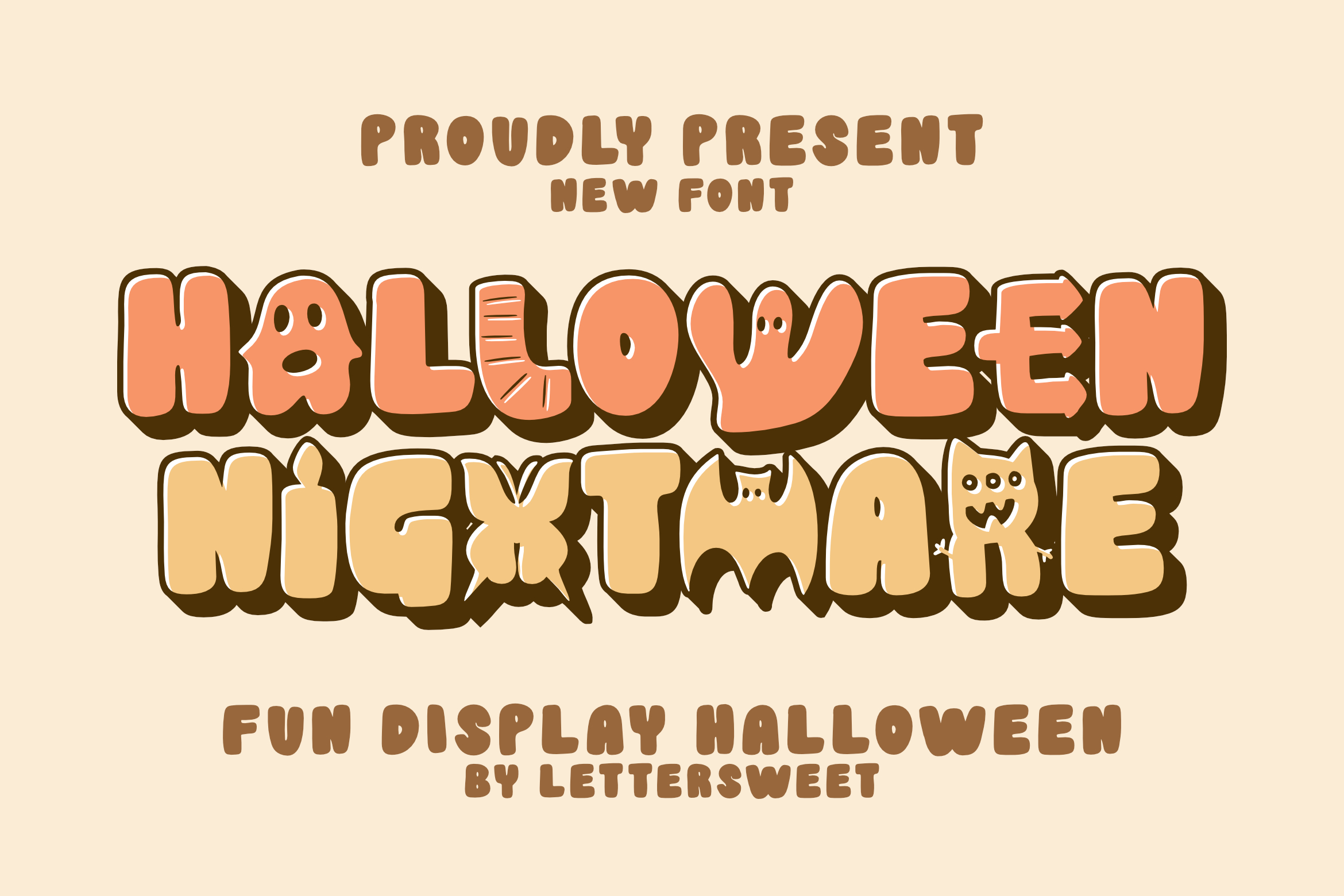
Halloween Nightmare - Spooky Decorative Font
About Halloween Nightmare - Spooky Decorative
Halloween Nightmare is a bold and spooky decorative font with cute letters. Add it to your Halloween crafts, horror movie posters, t-shirts, and anything else that requires a spectacular look. Masterfully designed to become a true favorite, this font has the potential to bring each of your creative ideas to the highest level!